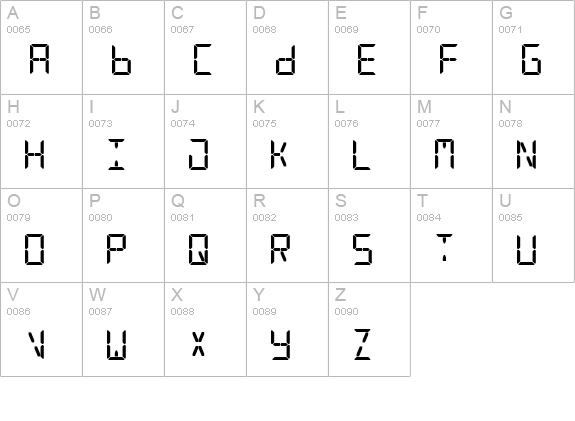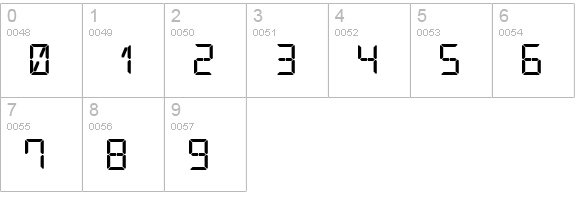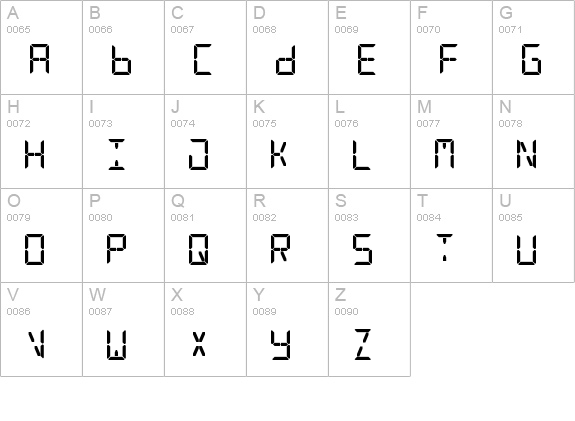
Digital Counter 7 font is a stunning display typeface that exudes a modern and futuristic vibe. Its sleek and bold letterforms are designed to resemble a digital counter, making it perfect for any design or project that requires a cutting-edge and technological aesthetic. This font features a unique and eye-catching design, with each character carefully crafted to mimic the appearance of a digital display. The sharp edges and clean lines give it a crisp and professional look, while the rounded corners add a touch of warmth and accessibility. Digital Counter 7 font is incredibly versatile and can be used for a wide range of projects. Whether you need to create attention-grabbing headlines, captivating logos, or stylish digital designs, this font has got you covered. Its bold and impactful presence will make your text stand out and leave a lasting impression on your audience. The best part? Digital Counter 7 font is completely free! Yes, you heard it right. This incredible font is freely available to download at FontsMarket.com. You can easily access and use it for both personal and commercial projects without any restrictions. Say goodbye to expensive licensing fees and hello to endless creative possibilities. So, why wait? Download Digital Counter 7 font now and elevate your designs to new heights. Its sleek and modern style, coupled with its availability as a free download, makes it an invaluable asset for any designer or creative enthusiast. Don't miss out on the opportunity to add this extraordinary font to your collection. Get ready to impress and inspire with Digital Counter 7 font!